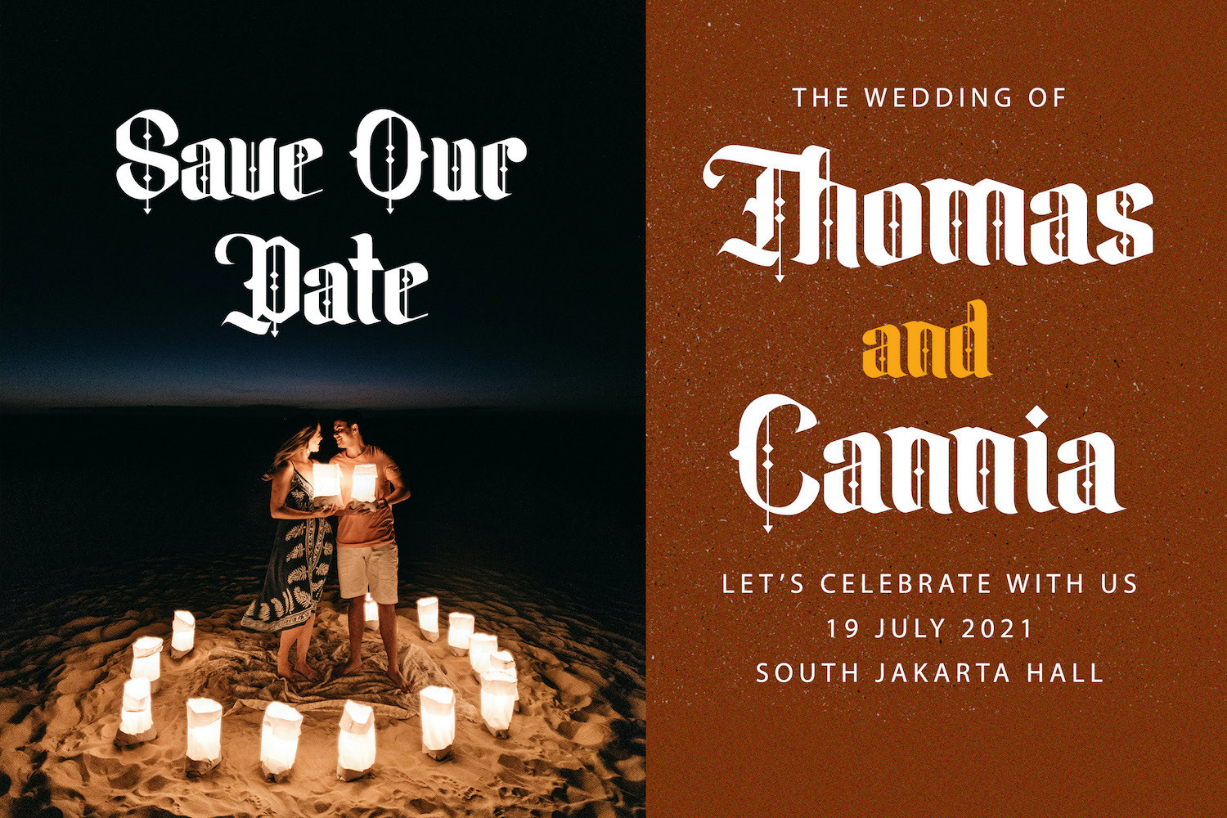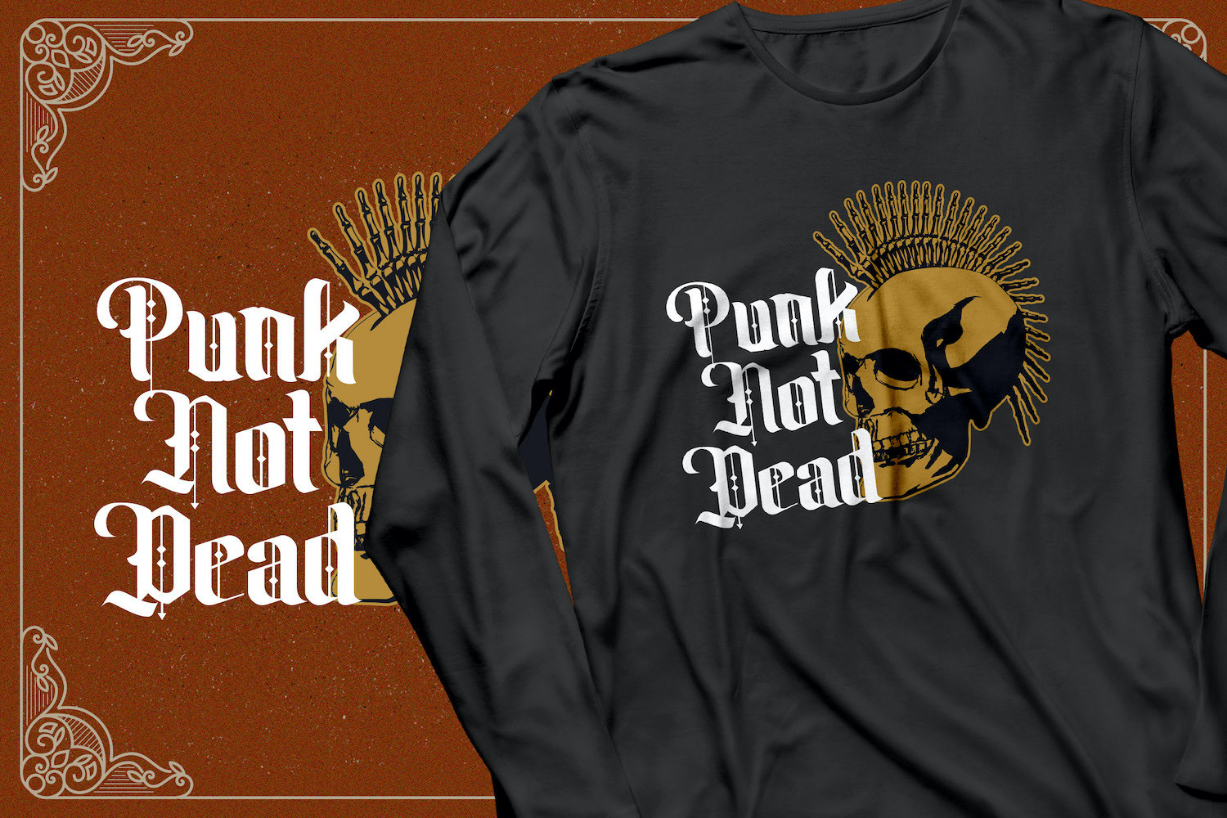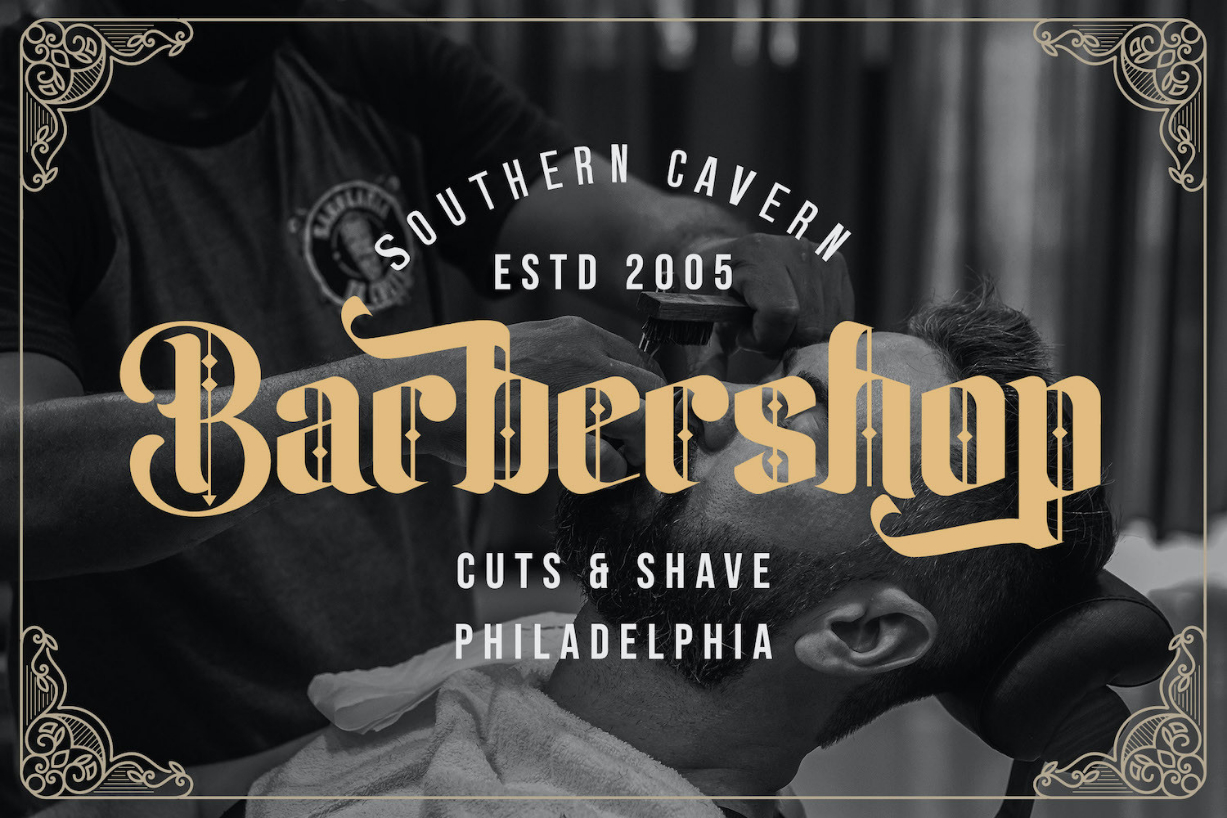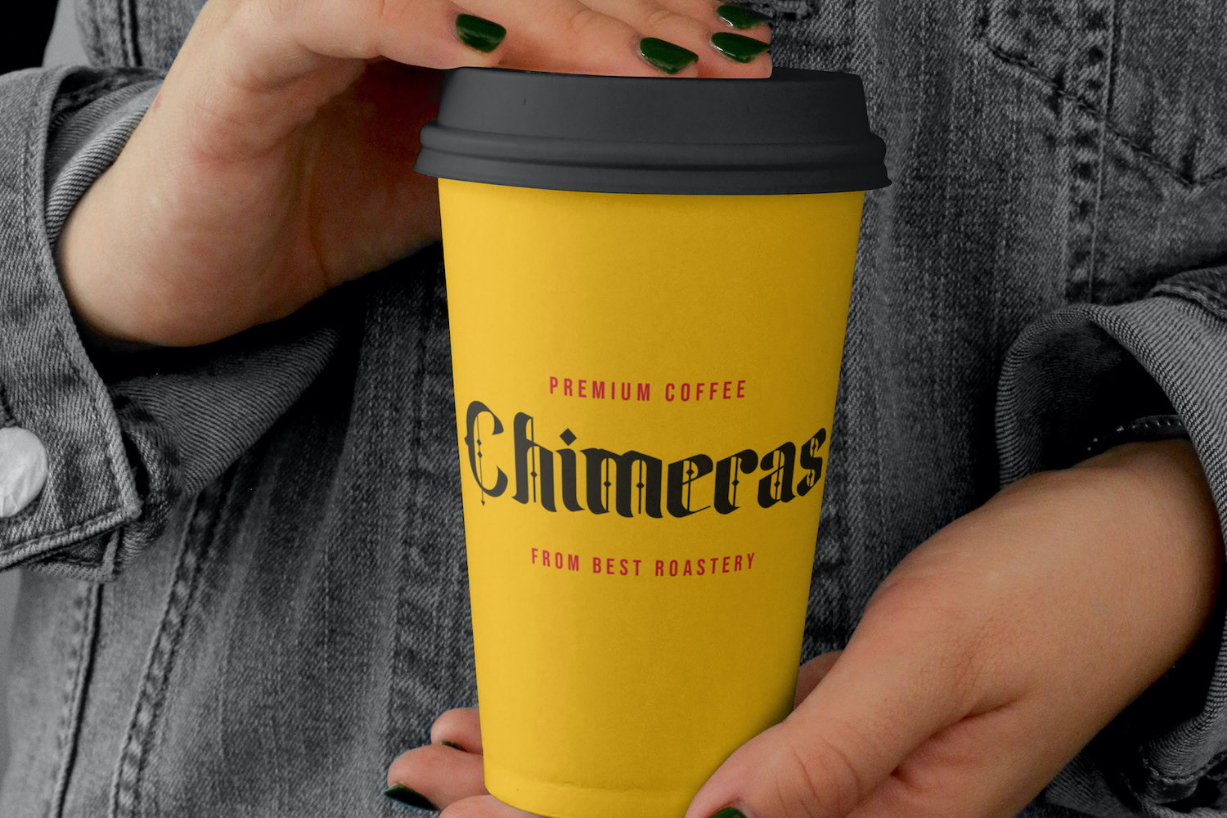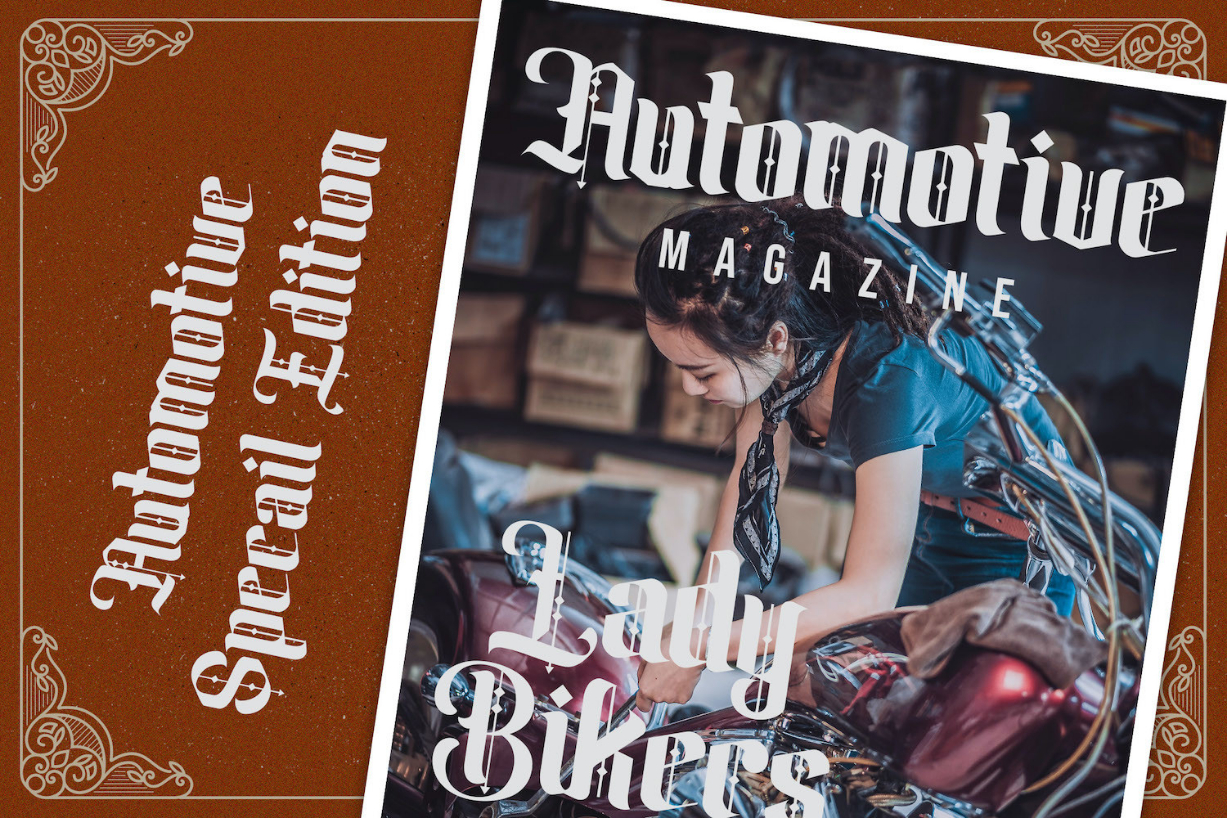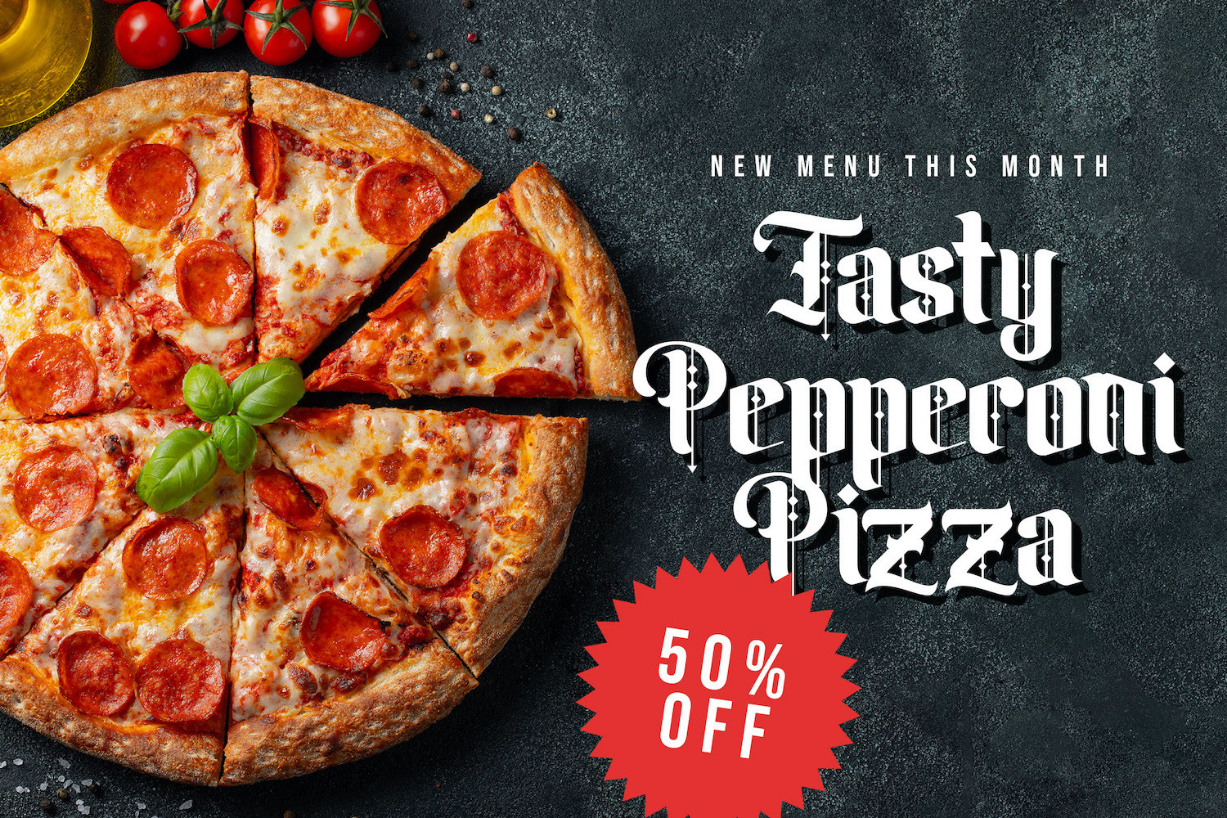
Biqaby Goku Font
About Biqaby Goku Font
Biqaby Goku is a bold, distinct and unique blackletter font. Due to its assertiveness and elegance, this font will be an incredibly asset to your fonts’ library, as it has the potential to elevate any creation.